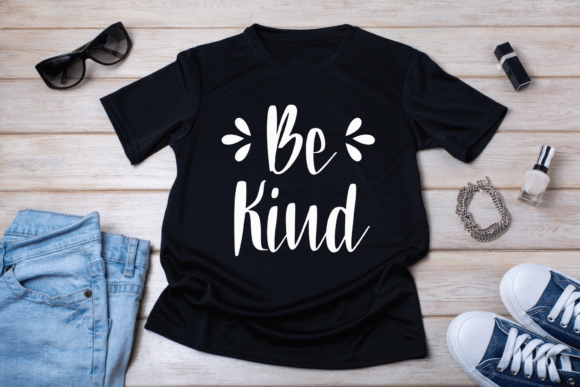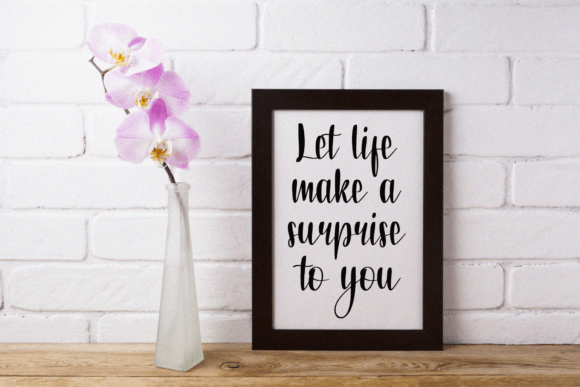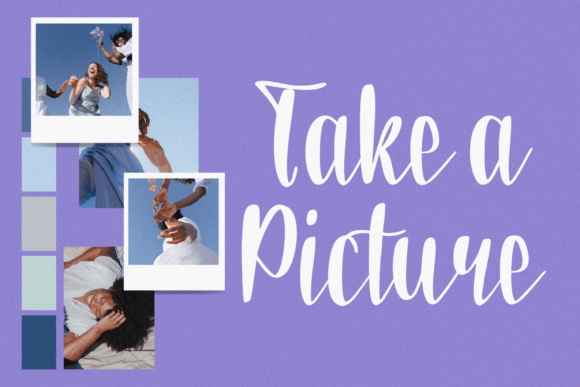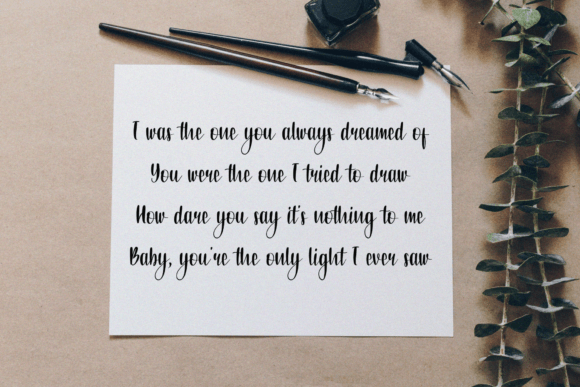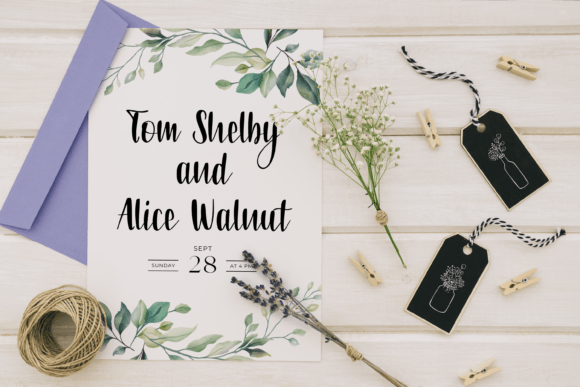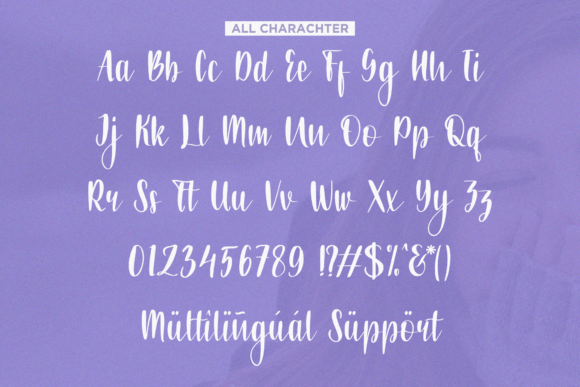
Introducing Flanela Monicha Font: The Perfect Handwritten Style for Your Creative Projects
In the world of typography, handwritten fonts have always been a favorite among designers and crafters. They add a personal touch, a dash of elegance, and a whole lot of character to any project. If you’re on the hunt for a modern handwritten font that can elevate your designs, look no further than Flanela Monicha Font. In this article, we’ll dive into the features, benefits, and uses of Flanela Monicha, and explore why it’s the perfect addition to your typography collection.
What is Flanela Monicha Font?
Flanela Monicha is a modern handwritten font designed to bring a touch of sophistication and whimsy to your creative projects. With its fluid strokes, elegant letterforms, and charming personality, this font is perfect for a wide range of applications, from product packaging and branding projects to magazines, social media, weddings, and more.
Key Features of Flanela Monicha Font
- Modern Handwritten Style: Flanela Monicha boasts a fresh, contemporary look that’s perfect for designers and crafters looking for a font that stands out from the crowd.
- Highly Versatile: Whether you’re working on a product label, a wedding invitation, or a social media post, Flanela Monicha adapts seamlessly to any project.
- Elegant and Whimsical: This font strikes the perfect balance between elegance and playfulness, making it ideal for projects that require a touch of sophistication and fun.
- Easy to Read: Despite its decorative nature, Flanela Monicha remains highly legible, ensuring your message gets across clearly and effectively.
Uses of Flanela Monicha Font
Flanela Monicha’s versatility is one of its strongest assets. Here are some of the many ways you can use this beautiful font:
- Product Packaging: Add a personal touch to your product labels, tags, and packaging with Flanela Monicha’s unique style.
- Branding Projects: Create a memorable brand identity with this font, perfect for logos, business cards, and letterheads.
- Magazines and Editorials: Use Flanela Monicha to add a touch of elegance to your magazine layouts, editorials, and articles.
- Social Media: Stand out on social media platforms with eye-catching posts, stories, and captions in Flanela Monicha.
- Weddings and Events: Make your wedding invitations, menus, and event signage truly special with this beautiful handwritten font.
Why Choose Flanela Monicha Font?
With so many fonts available, why should you choose Flanela Monicha? Here are a few compelling reasons:
- Unique Style: Flanela Monicha offers a distinctive look that will set your projects apart from the rest.
- Time-Saving: With its comprehensive character set and versatility, you can use Flanela Monicha for multiple projects, saving you time and effort.
- High-Quality Design: This font is designed with precision and care, ensuring it looks great in any context.
Flanela Monicha Font is a game-changer for designers and crafters looking for a modern handwritten font that can elevate their creative projects. Its unique blend of elegance, whimsy, and versatility makes it the perfect addition to your typography collection. Whether you’re working on product packaging, branding projects, or simply want to add a personal touch to your social media posts, Flanela Monicha is the ideal choice. So why wait? Discover the endless possibilities with Flanela Monicha Font today!